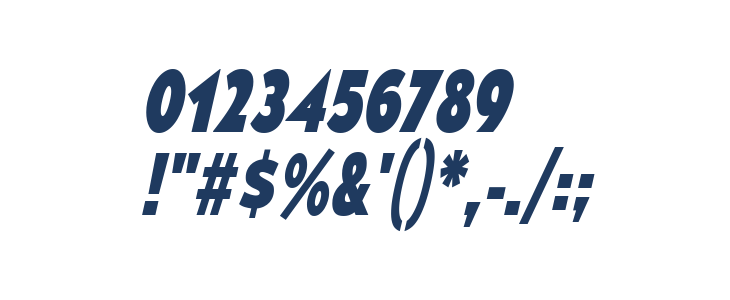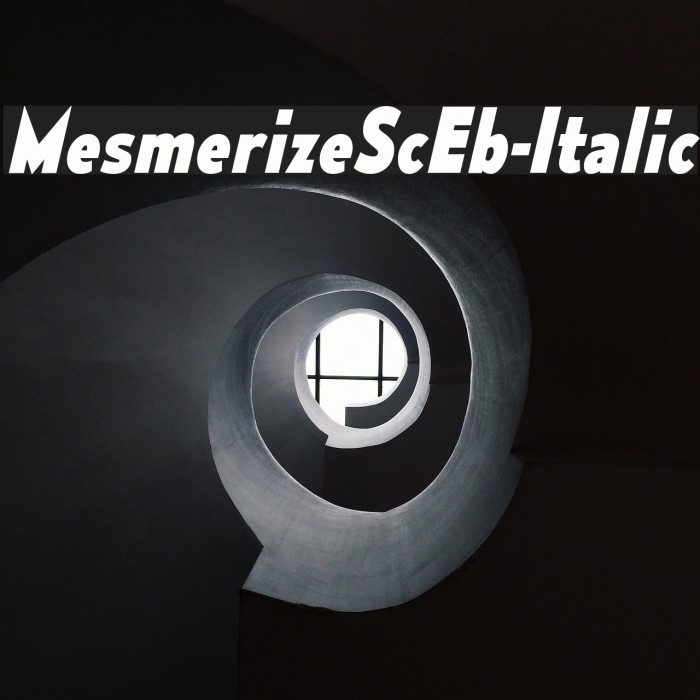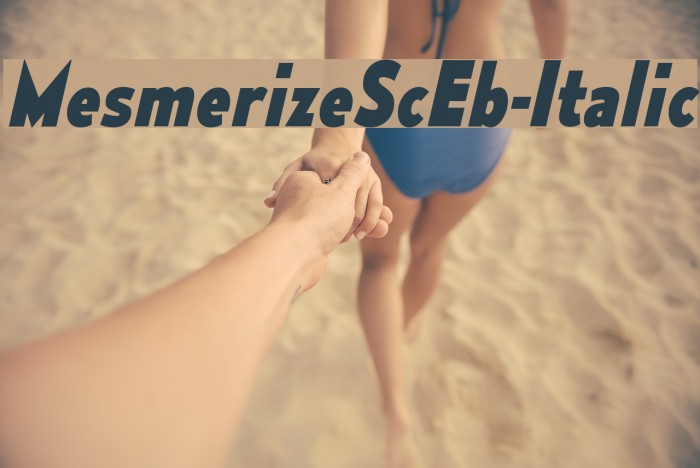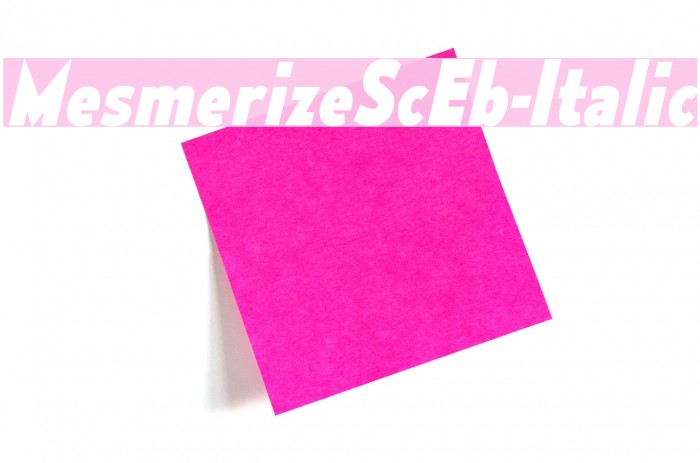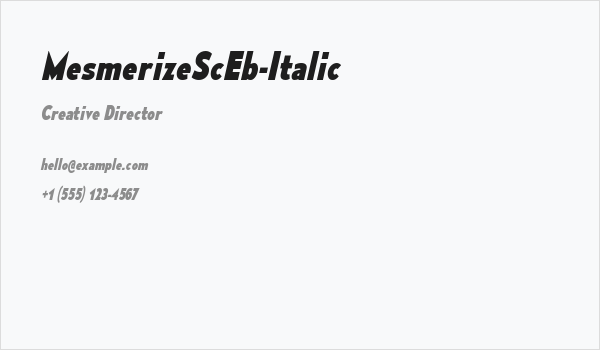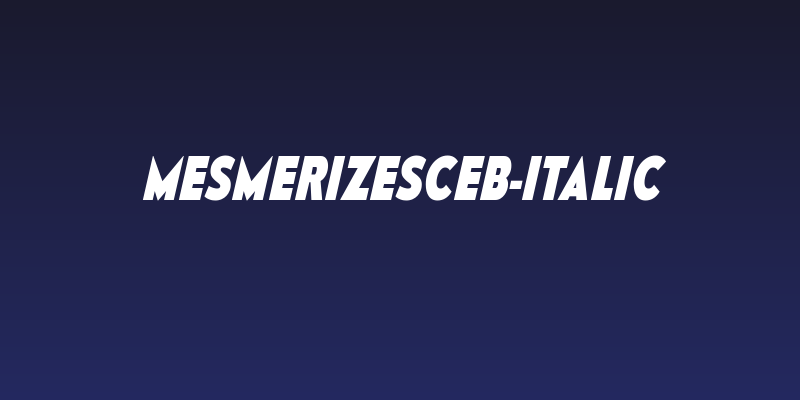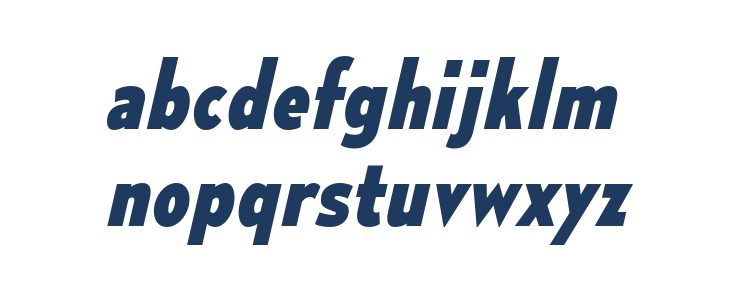
MesmerizeScEb-Italic Font
MesmerizeScEb-Italic Description
This font exhibits a bold and dynamic style with a strong italic slant, giving it a sense of motion and energy. The characters are thick and robust, providing a powerful visual impact. The uppercase and lowercase letters maintain a consistent weight, ensuring readability while adding a touch of flair. The numerals are equally bold, complementing the overall design. Special characters are crafted with the same attention to detail, making them stand out. The font's boldness and italic nature make it suitable for attention-grabbing headlines and impactful designs.
| Proposed Projects | Ideal for sports branding, dynamic posters, and bold advertising campaigns. |